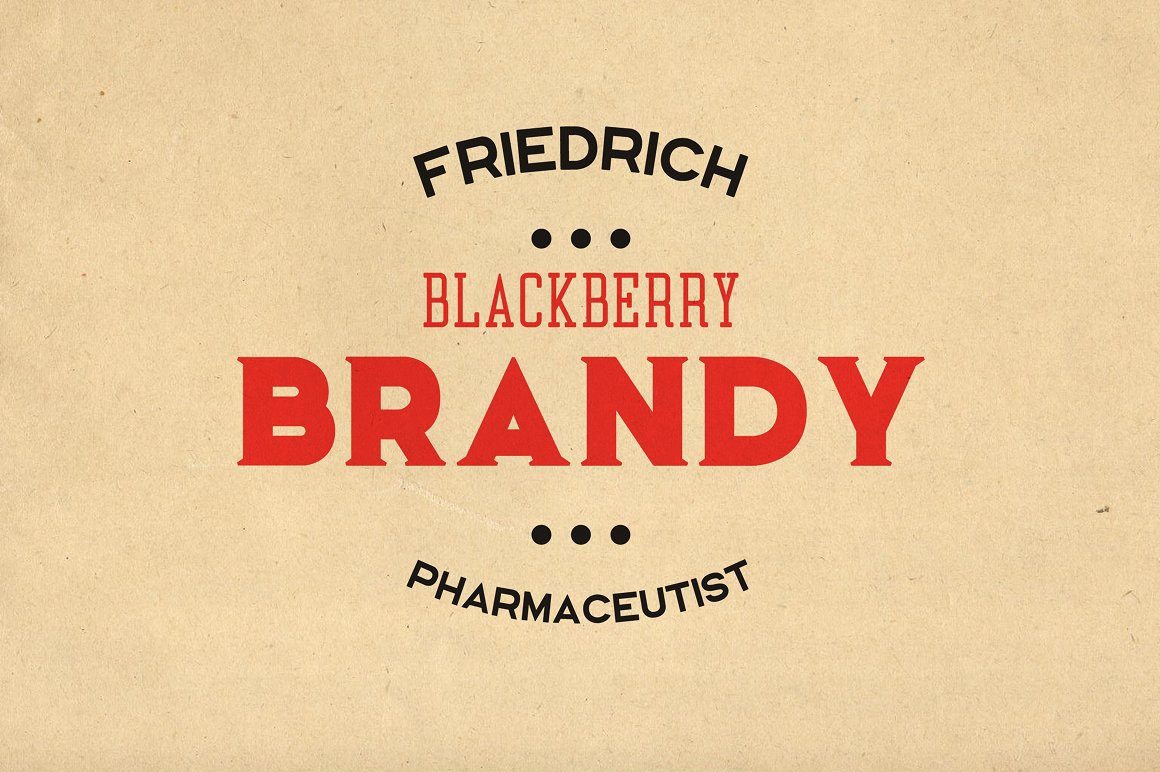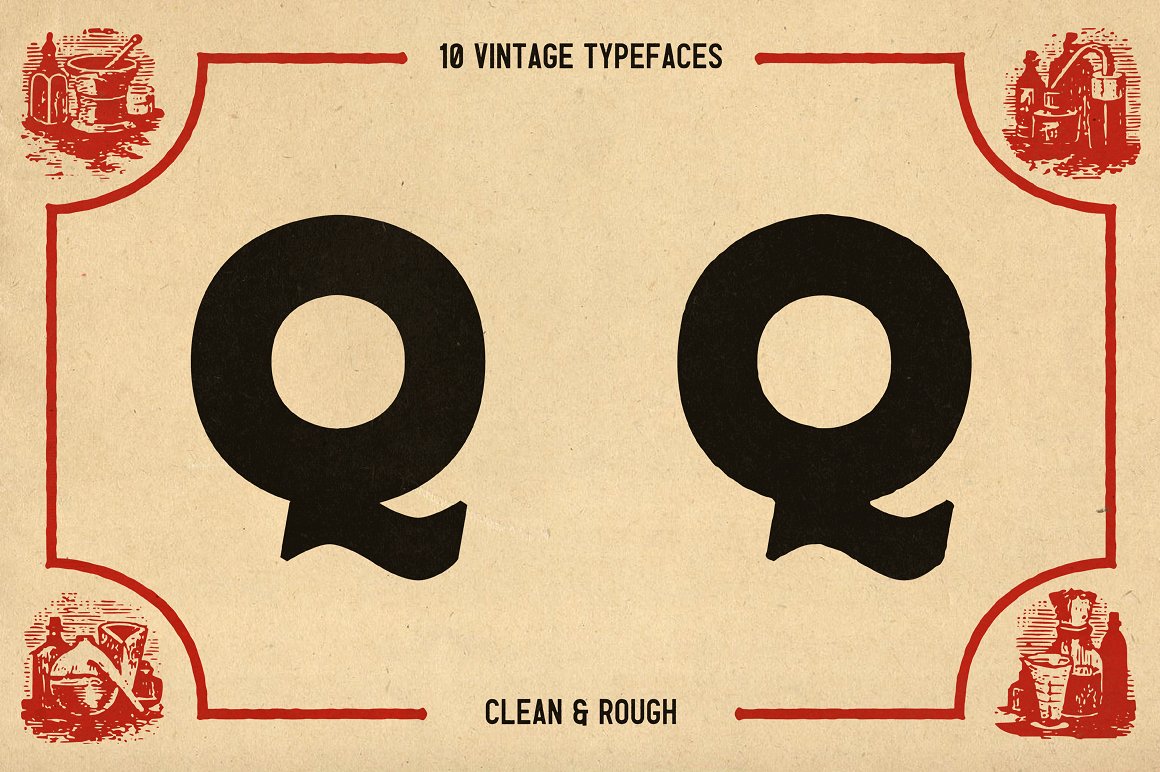
Seidlitz Typeface
Introducing Seidlitz Font. It is designed by Bart Wesolek, this is a premium font, are sold on creativemarket, but it was great, it is free today for download. Seidlitz is a bold vintage font inspired by retro apothecary typography. Typeface is great for vintage logos, labels, posters and more.